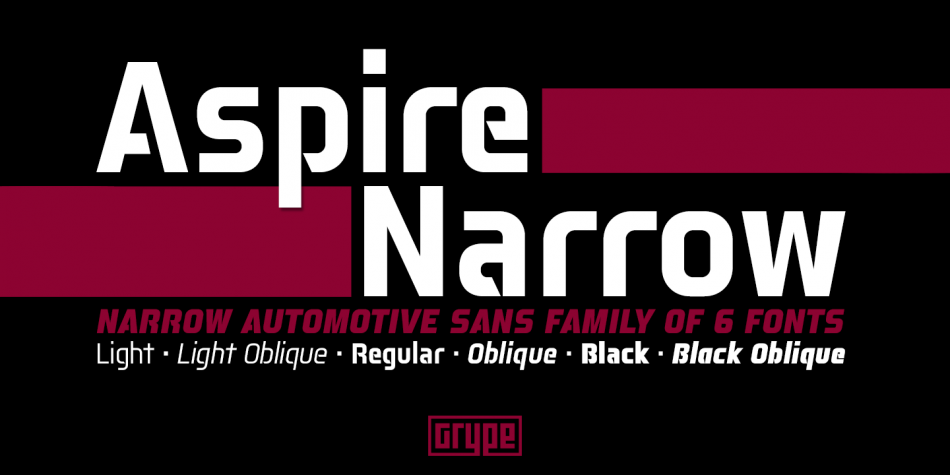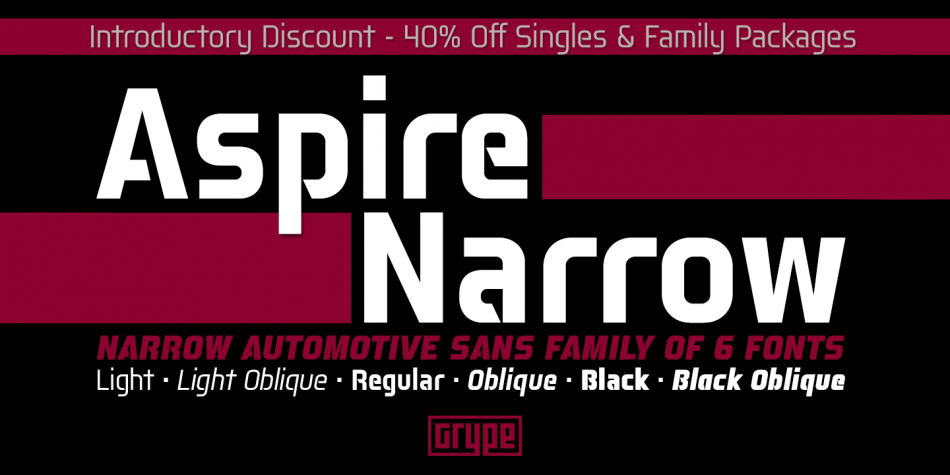
Designed by Brian J. Bonislawsky and Jim Lyles, Aspire Narrow is a sans serif font family. This typeface has six styles and was published by Grype Type.
Aspire Narrow While the Aspire family finds its roots of inspiration in the ACURA automotive company logo, with its wider base, the Aspire Narrow family condenses those styles into something more suitable for larger bodies of text in a more standardized width.
Aspire pays homage the techno display styling of the inspiration logotype, further evolving beyond its brand inspired origin to give birth to a font family that pulls on modern and historical styles.
It adopts a sturdy yet approachable style with its uniform stroke forms and curves, and goes on to include a lowercase, numerals, and a comprehensive range of weights, creating a straightforward, uncompromising collection of typefaces that lend a solid foundation and a broad range of expression for designers.
(see the 6th graphic for a preview of the characters included) Stylistic Alternates - alternate characters that remove the angled stencil cuts for a more standardized text look.
Here’s why the Aspire Narrow Family is for you: You’re in need of a narrow automotive sans font family with a range of weights and obliques You’re love that ACURA letter styling, and want to design with a narrow font within that genre You’re looking for an alternative to Eurostile with more stylized letterforms.
You’re looking for a clean techno typeface for your starship console labelling.
You just like to collect quality fonts to add to your design arsenal